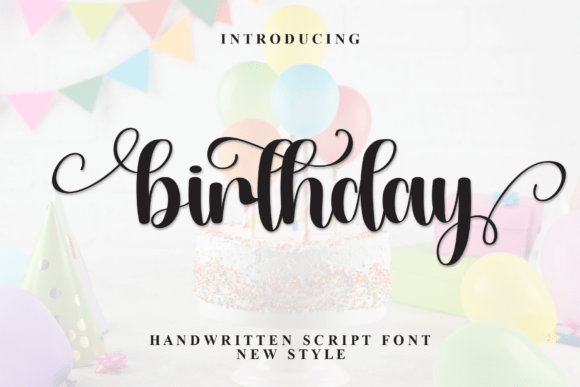
Celebrating Life’s Precious Moments with the Birthday Font
I still remember the time I was working on a birthday party invitation for my niece’s milestone celebration. I had the design concept all sorted out, but I was stuck on finding the perfect font to capture the excitement and joy of the occasion. The invitation needed to be playful, yet elegant; fun, yet readable. That’s when I stumbled upon the Birthday font, a whimsical and bouncy handwritten script that instantly resonated with the project’s vibe.
The Birthday Font: A Whimsical and Playful Typeface
The Birthday font is a charming, handwritten script designed to spread joy and make your designs feel more personal and festive. Its elegant loops and rhythmic flow make it perfect for party invitations, greeting cards, and any other celebration-related design project. What I love about this font is its ability to add a touch of handmade warmth to digital designs, making them stand out from the crowd.
What I Love About the Birthday Font ✨
- ✅ Playful Energy: The Birthday font has a lively, bouncy feel that instantly captures the excitement of a celebration.
- ✅ Elegant Loops: The font’s elegant loops and rhythmic flow give it a sophisticated, yet playful feel.
- ✅ Readability: Despite its playful nature, the Birthday font remains highly readable, even when used for complex vinyl cutting or laser-engraved gifts.
- ⚠️ Pairing with Other Fonts: While the Birthday font is stunning on its own, it can be a bit tricky to pair with other fonts. It’s best paired with clean, minimalist sans-serifs to let its decorative flourishes take center stage.
- ⚠️ Overuse of Swashes: With great power comes great responsibility! Be mindful of overusing swashes and alternate characters, as it can make the design look cluttered.
The Designer Inspiration Behind the Birthday Font
The Birthday font was designed with the intention of capturing the joy and excitement of celebrations. Its creator wanted to craft a typeface that would add a touch of handmade warmth to digital designs, making them feel more personal and festive. The result is a charming, whimsical script that’s perfect for a wide range of design projects.
Q: What is the Birthday font best used for?
A: The Birthday font is perfect for party invitations, greeting cards, cake toppers, festive social media graphics, and any other celebration-related design project.
Q: Is the Birthday font difficult to read?
A: No, the Birthday font is highly readable, even when used for complex vinyl cutting or laser-engraved gifts.